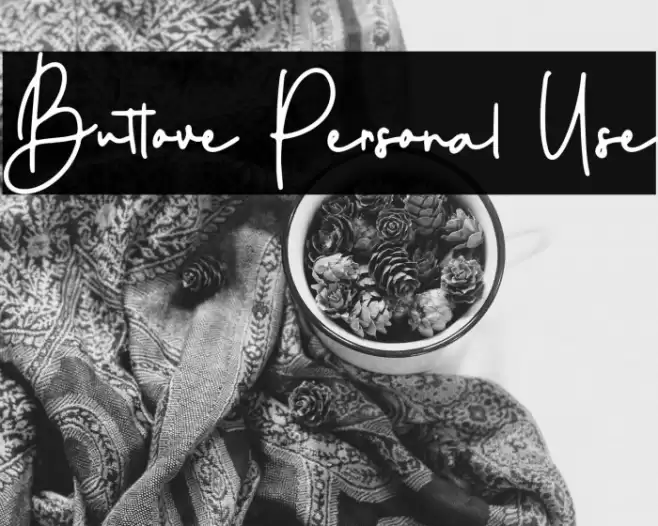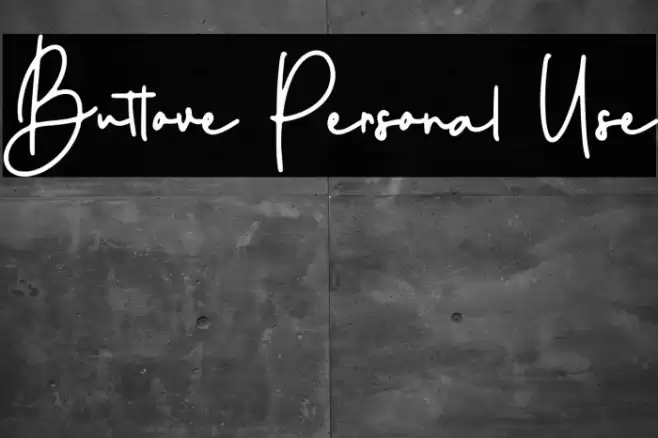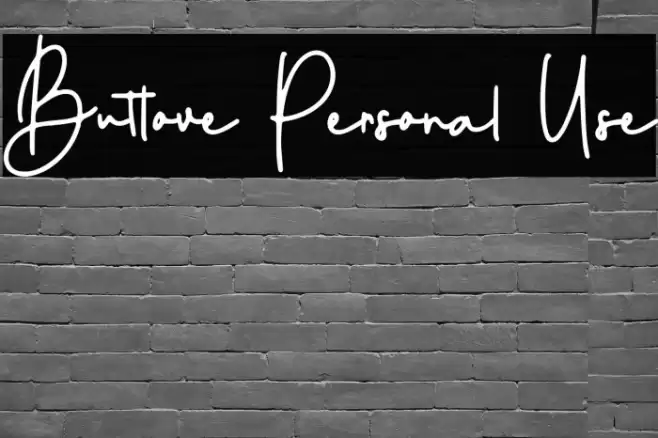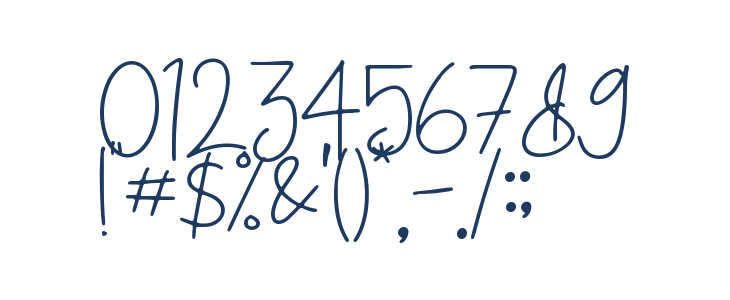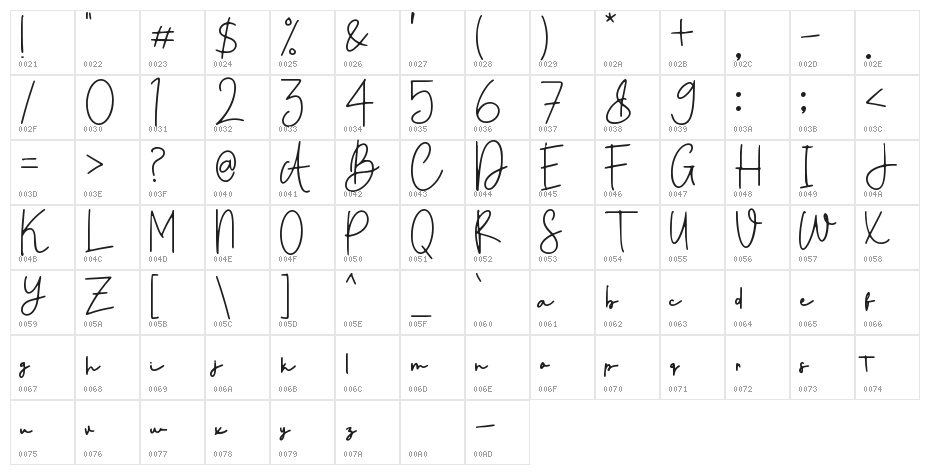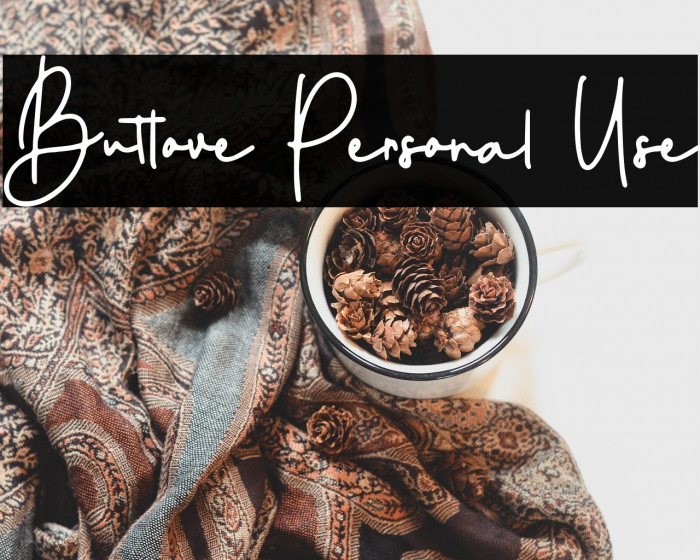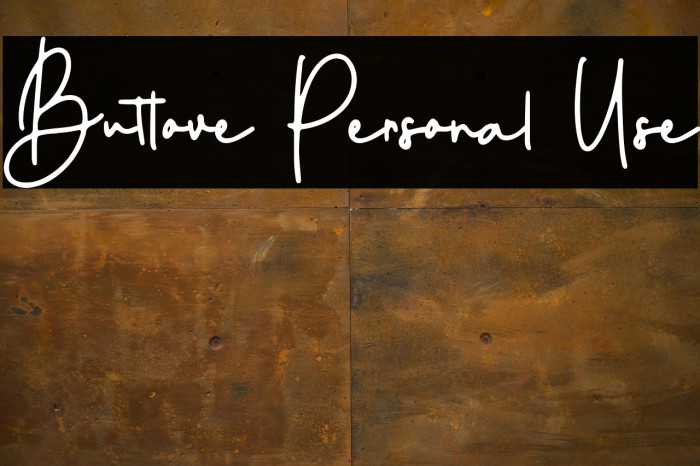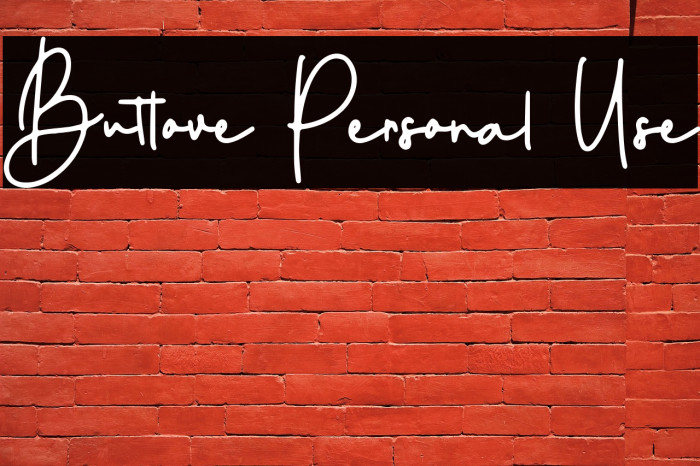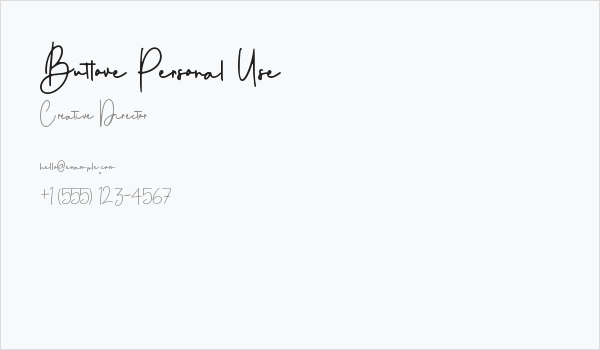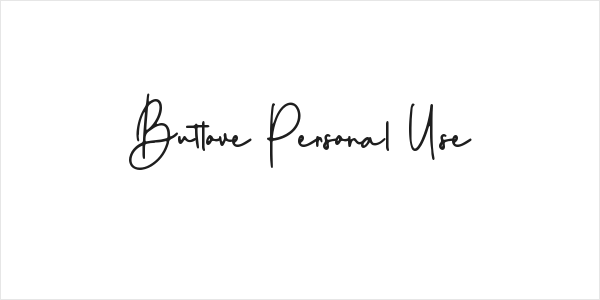
Butlove Personal Use Font
Butlove Personal Use Description
This font features a playful and casual handwritten style, characterized by its fluid and dynamic strokes. The uppercase letters are tall and slightly irregular, giving a whimsical feel, while the lowercase letters maintain a consistent flow with rounded edges. The numbers are bold and maintain the same playful aesthetic, making them easily readable. Special characters are creatively designed to match the overall style, adding a unique touch. The font's overall appearance is informal and friendly, making it suitable for projects that require a personal and approachable tone.
A playful and casual handwritten font with fluid strokes and a whimsical feel from Regular fonts.
- Proposed Projects: Ideal for greeting cards, invitations, personal branding, and creative social media graphics.
- Overall Style: Casual, Playful
- Use Case: Logos, Headlines, Invitations